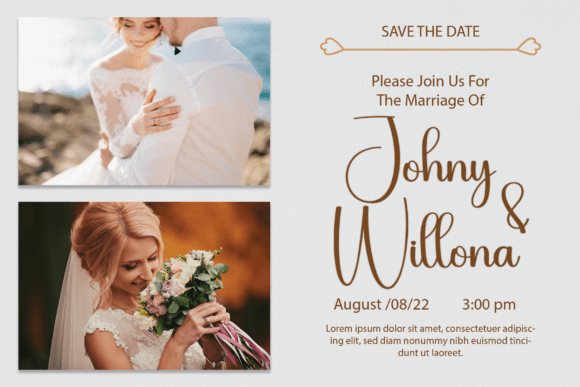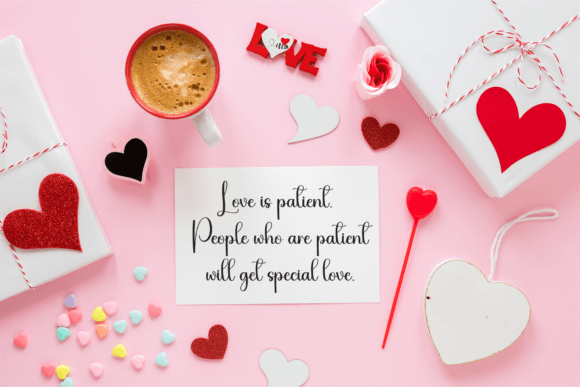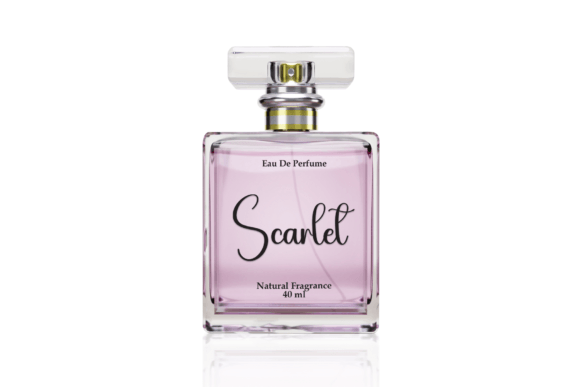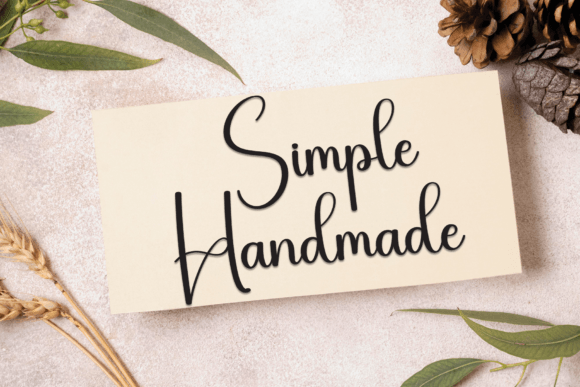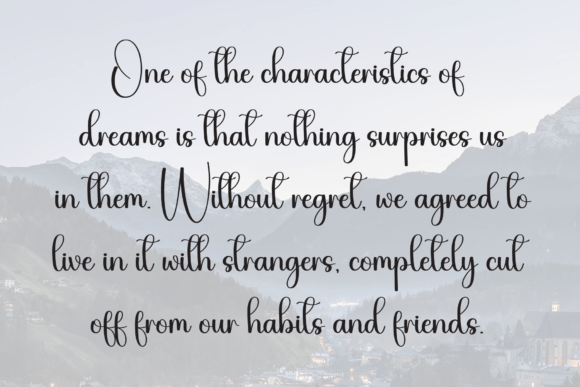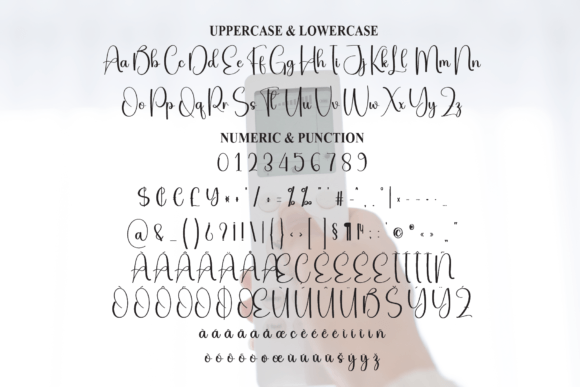
Introduction to Remote Font Font
Fonts play a crucial role in design, and the Remote Font font is a typeface that brings both character and versatility to any project. Whether you’re working on a branding project, a website, or a print design, the Remote Font font offers a unique style that can elevate your work.
Remote is a charming handwritten font that brings a sweet, personal touch to your designs.
With its smooth, flowing strokes and friendly character, it’s perfect for invitations, greeting cards, and cozy branding Add warmth and personality to your projects with the delightful charm of Remote.
Key Features of Remote Font Font
Why Choose Remote Font Font?
The Remote Font font is more than just a typeface – it’s a design tool that helps you communicate your message with style and clarity. Its unique character set and versatile design make it suitable for a wide range of applications, from elegant invitations to bold headlines.
With its carefully crafted letterforms and balanced proportions, the Remote Font font ensures readability and visual appeal across all mediums.
What makes Remote Font font special?
The Remote Font font stands out with its unique design, exceptional readability, and versatility across various design applications.